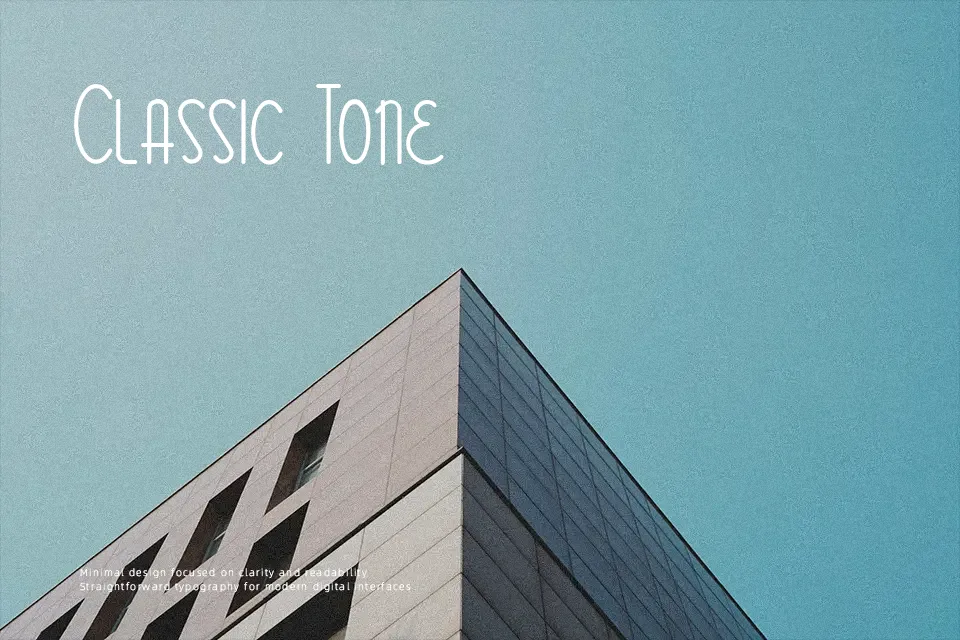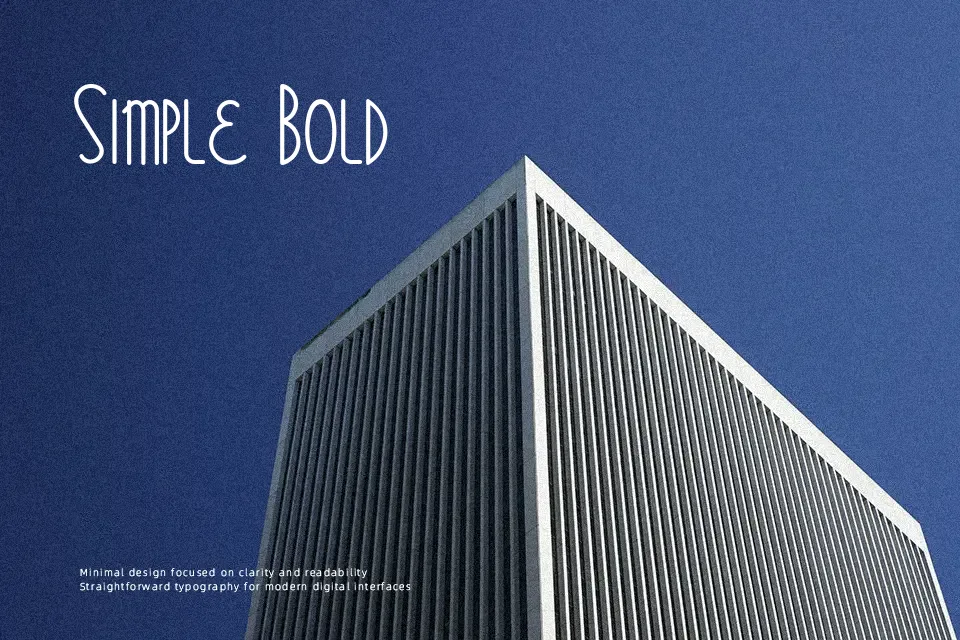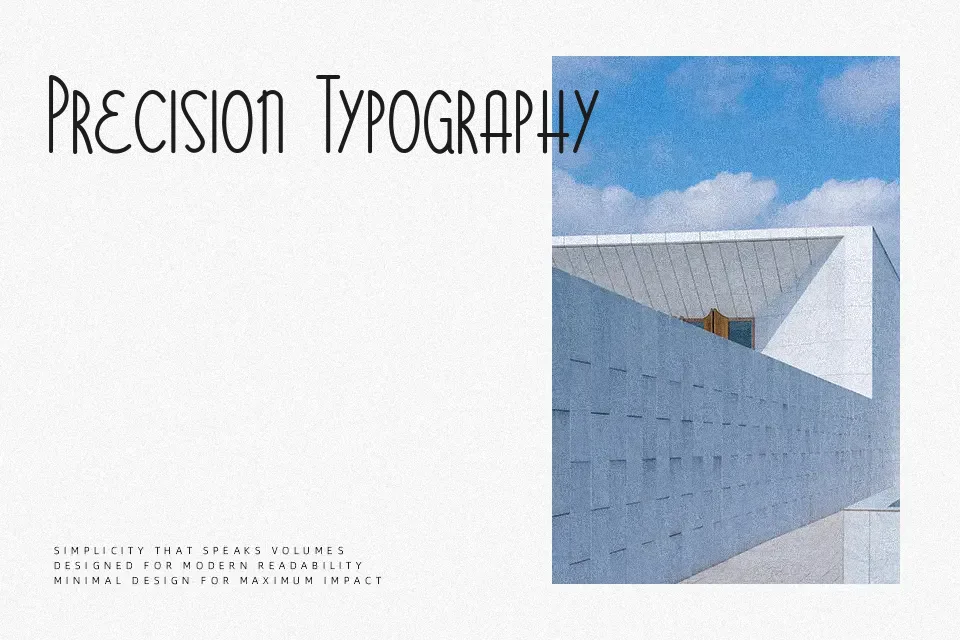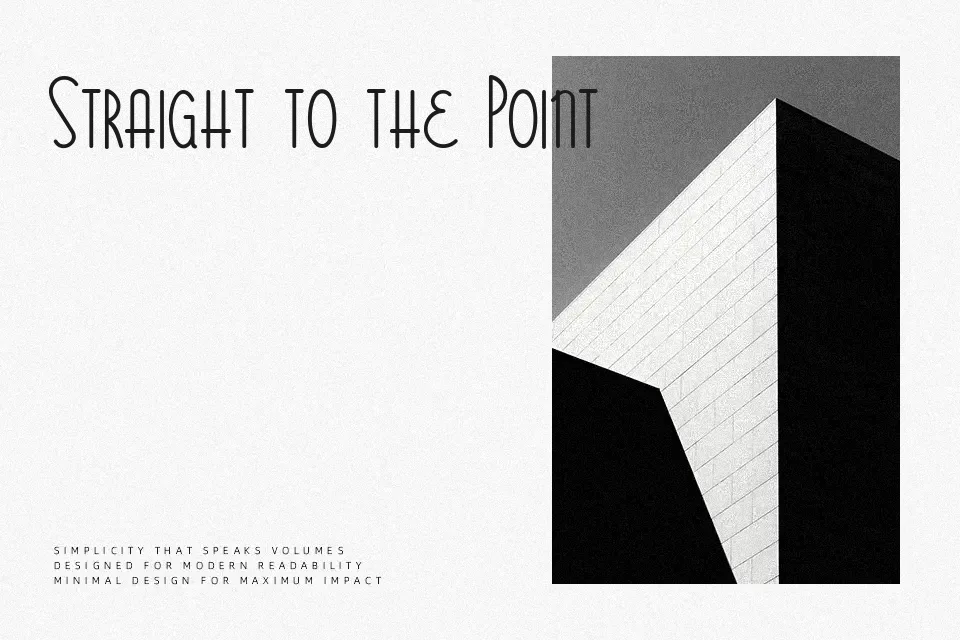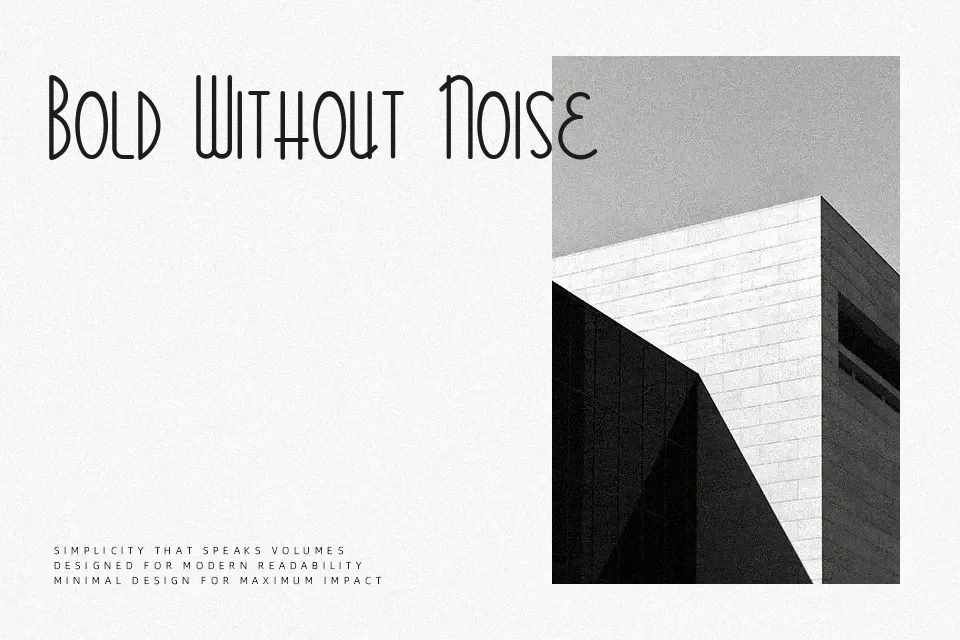
Bittersweet NF Font
Designed by Nick's Fonts
Designed by Nick Curtis, Bittersweet NF is a striking sans-serif display typeface directly inspired by 1930s hand-lettered cinema posters. The font features uniquely tall, condensed letterforms with sharp, geometric strokes and distinctively high crossbars that immediately evoke the golden age of film. Its overall impression is dramatically vintage and highly decorative. This typeface excels when creating attention-grabbing typographic layouts, such as retro-themed event posters, theatrical playbills, and nostalgic advertising headlines. However, its heavily stylized, compressed structure means it struggles in small point sizes or lengthy paragraphs. Compared to standard sans-serifs, Bittersweet NF sacrifices standard legibility for pure historical character, making it a specialized but impactful tool for large display work.
– Vintage-themed event posters
– Cinematic and theatrical headlines
– Art Deco-inspired advertising materials
– Dense paragraph reading
– Minimalist digital user interfaces
– Small-scale mobile application text
Perfect for advertising, film, and headline, with a artistic and condensed style.